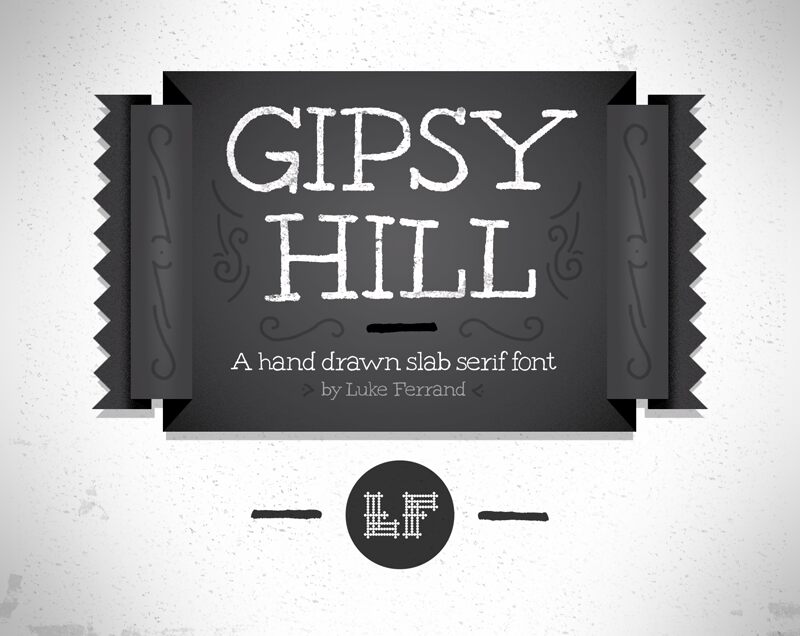
Gipsy Hill font, designed by Luke Ferrand, is a free typewriter font that exudes a nostalgic and handcrafted charm. Inspired by classic typewriter styles, this font offers a rustic and artistic touch that feels both vintage and contemporary. Its hand-drawn aesthetic makes it approachable and versatile, capturing a sense of casual elegance perfect for creative projects.
Due to its artisan and original appearance, Gipsy Hill might be your favorite for posters, brochures, magazines, or advertisements. It also adds a vintage feel to social media posts, website designs, branding, and packaging. The decorative flair further enhances logo designs and book covers.